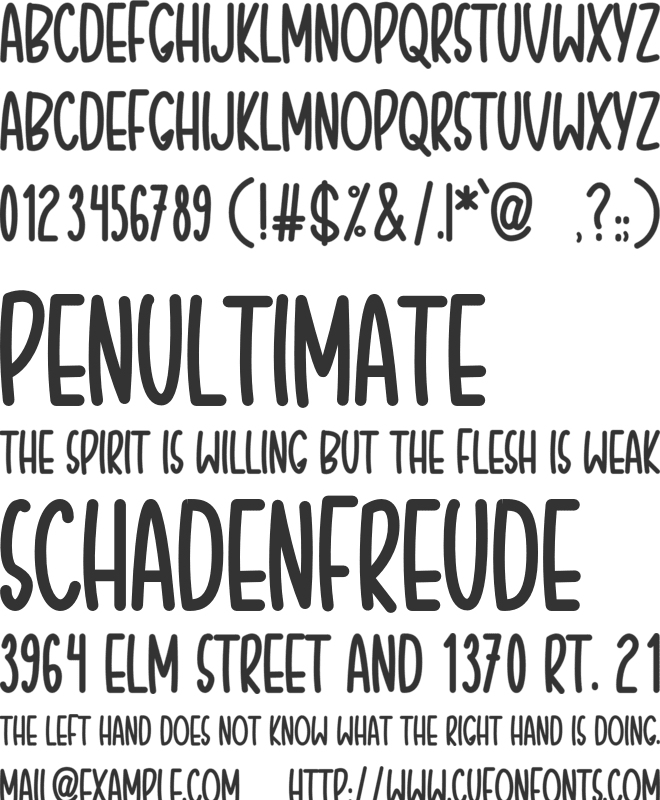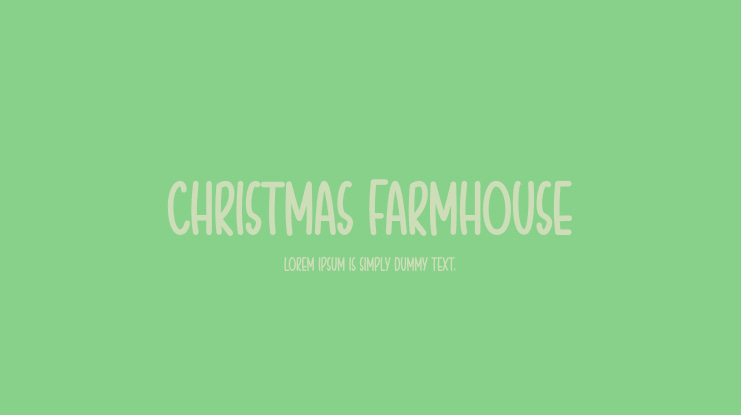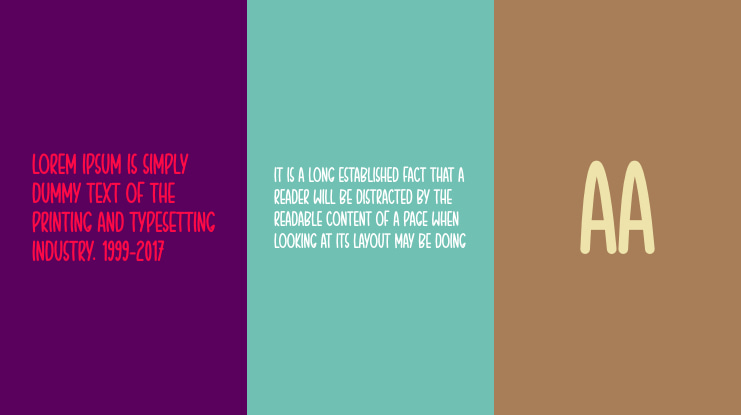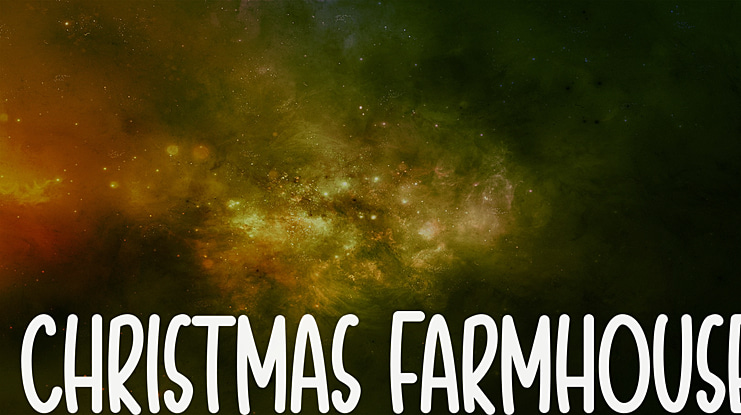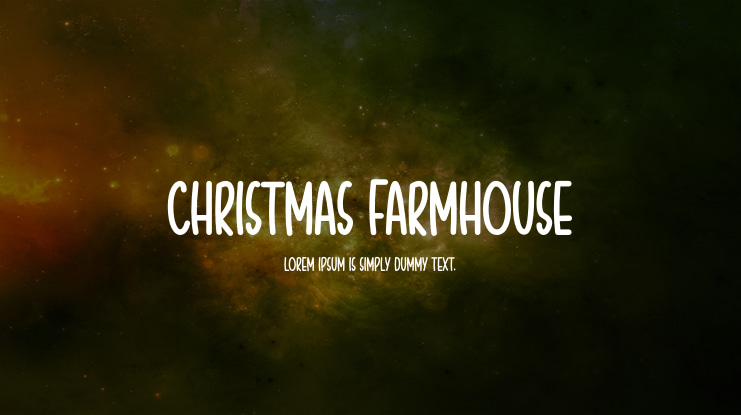
Christmas Farmhouse Font
Christmas Farmhouse is a cute and sweet handwritten font. Its natural and unique style makes it incredibly fitting to a large pool of designs. The only limit is your imagination!